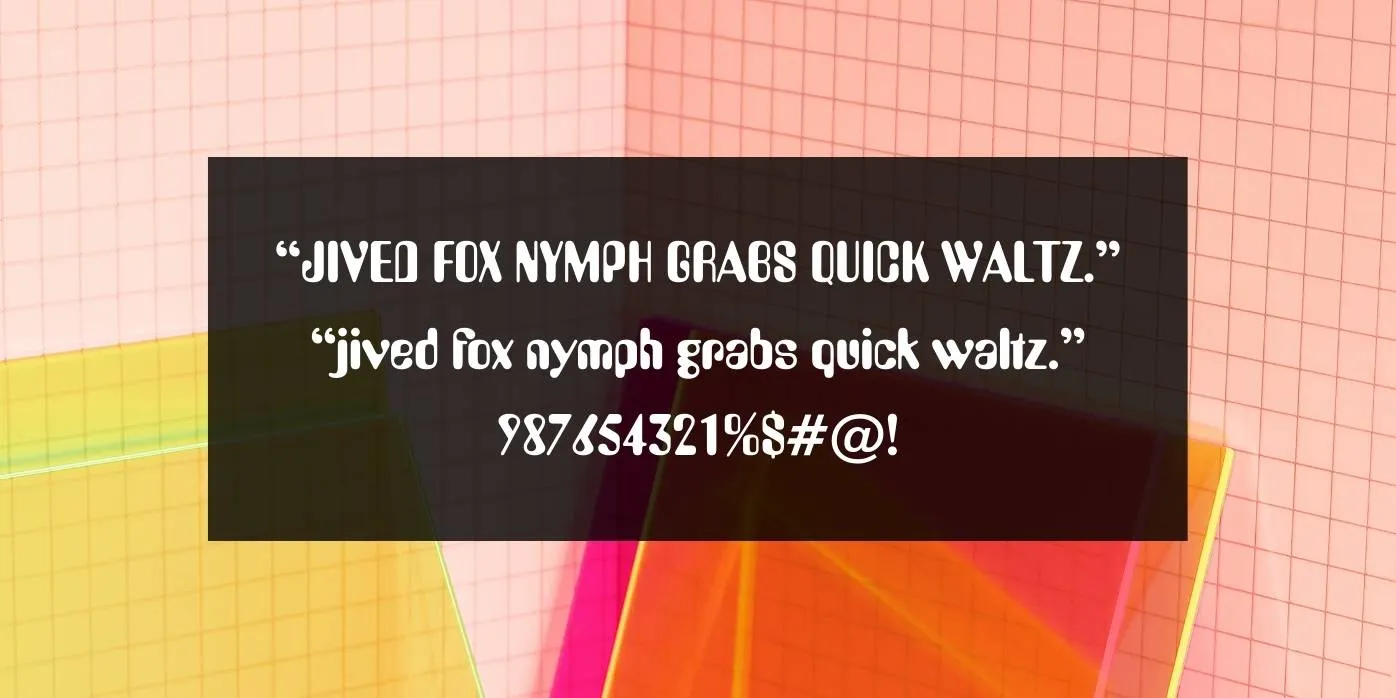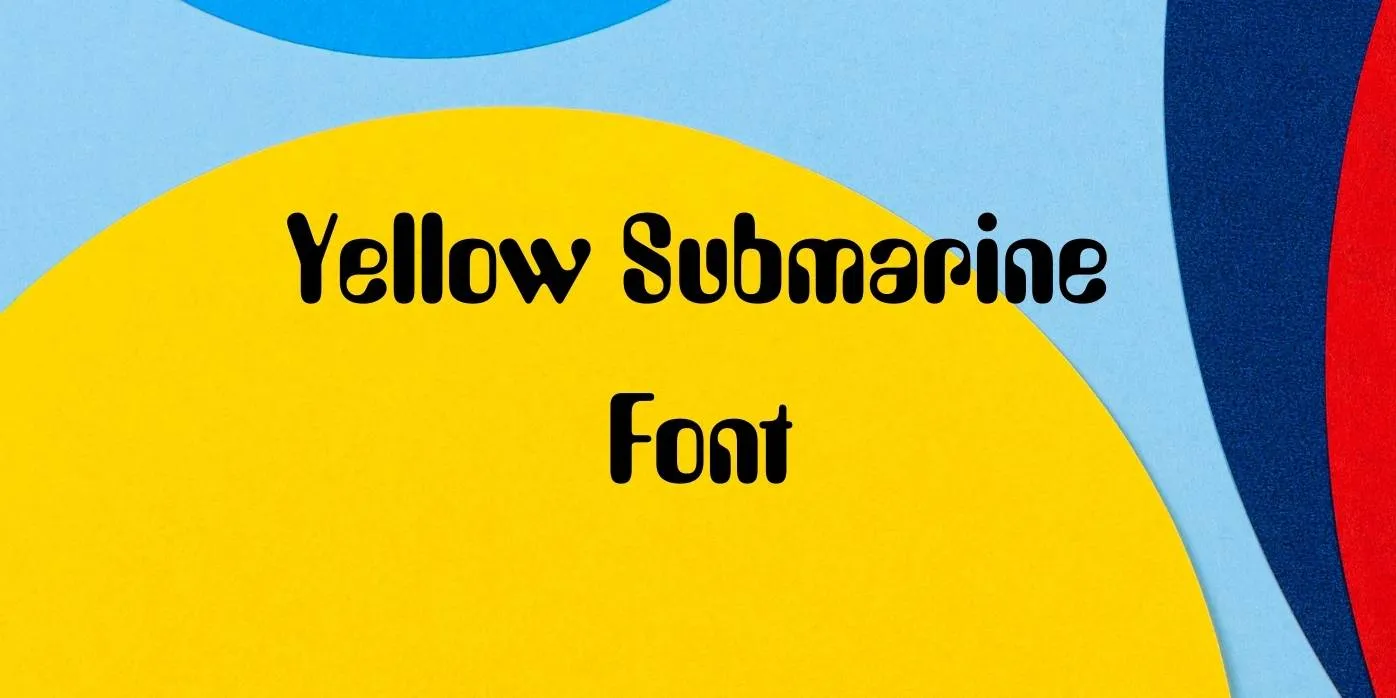
Yellow Submarine Font
Yellow Submarine Font belongs to the fancy font family and was designed by¬† Jens R. Ziehn. The design of the font was inspired by the movie “Yellow Submarine”. The font is available in two styles, regular and italic.
The Yellow Submarine Typeface has a unique design that makes it stand out from other Typeface. The letters are designed to look like they are floating on the surface of the water. This gives the font a playful and fun appearance. You can also use ninja turtles font which is closest to this font family.